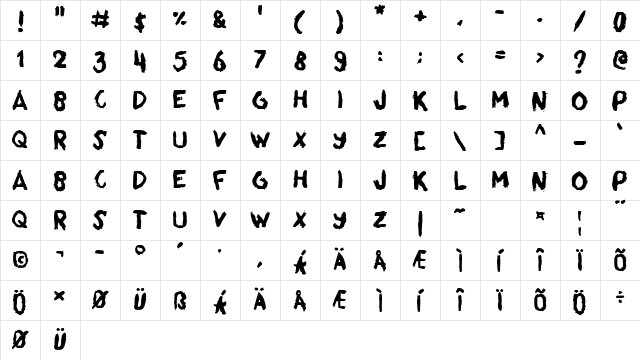
Pinzelan Regular Free Font
Pinzelan Regular
Designer: GGBot
Design Context for Pinzelan
Pinzelan is a composed and adaptable typeface that performs quietly and consistently across a wide range of design contexts.